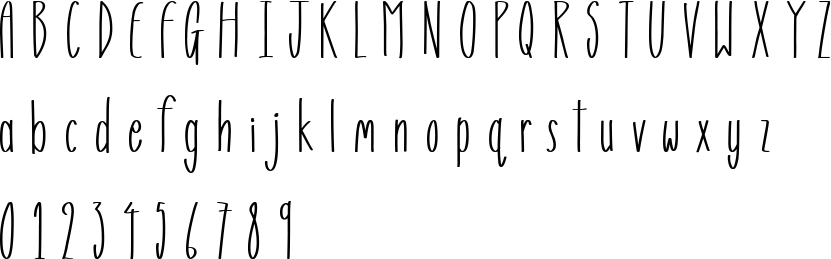
Gospel Message Font
The Gospel Message Font
About the Gospel Message Font
Cool hand-written font. “Gospel Message”. Perfect for advertising purposes and merchandise, including invitation cards, book covers, shirts, posters, logos and much more!